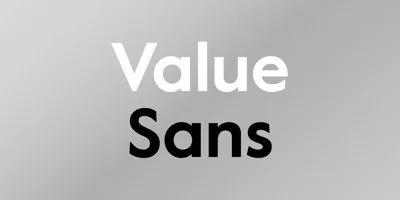
Value Sans Variable Font
Value Sans Variable Font is ideal for web design, mobile applications, user interface design, corporate branding, digital signage, modern logos, and responsive web typography. This versatile typeface adapts seamlessly to both screen and print media applications.
Value Sans Variable Font is exciting because it utilizes cutting-edge variable font technology, allowing designers to access infinite weight and width variations within a single font file. This revolutionary approach provides unprecedented flexibility and creative control while maintaining optimal file size efficiency.
The Value Sans Variable Font family encompasses a complete range of weights from Ultra Light to Black, with customizable width options spanning from Condensed to Extended. The variable format enables smooth interpolation between any points along these axes.
Value Sans Variable Font represents the future of digital typography with its advanced variable font capabilities. This contemporary sans-serif typeface combines clean geometric forms with humanist touches, creating a balanced and highly legible design. The font's variable nature allows for precise customization of weight, width, and other typographic parameters, making it perfect for responsive design projects where adaptability is crucial. Its neutral yet distinctive character makes it suitable for a wide range of applications, from minimalist branding to complex user interfaces. The font maintains excellent readability across all sizes and weights, ensuring consistent performance whether used for body text or display purposes. Value Sans Variable Font offers designers the flexibility to fine-tune typography to exact specifications, creating unique visual identities while maintaining brand consistency across different media and platforms.